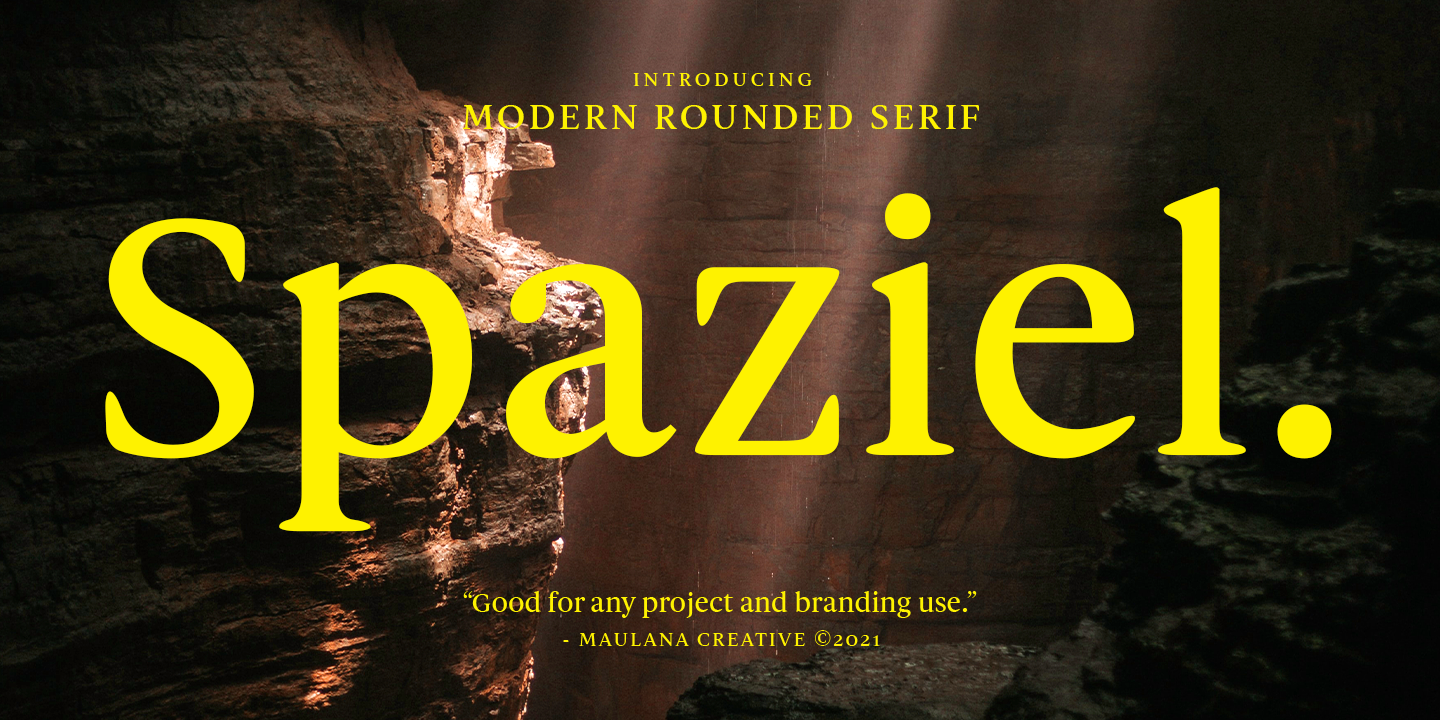
Spaziel Serif Round Font is perfect for sophisticated design applications including modern editorial layouts, contemporary book publishing, refined brand identity, upscale magazine typography, elegant web interfaces, cultural institution materials, premium business communications, and distinguished advertising campaigns that require typography with contemporary elegance and readable sophistication.
What makes Spaziel Serif Round Font exciting is its remarkable fusion of classical serif tradition with contemporary rounded aesthetics that creates exceptional readability while maintaining sophisticated character. This innovative typeface features gracefully rounded serifs with modern proportions and gentle curves that instantly communicate approachability, refinement, and progressive thinking. The font's contemporary personality and elegant functionality make it perfect for brands seeking to establish credible sophistication and communicate values of innovation, accessibility, and modern excellence to educated audiences.
Spaziel Serif Round Font family encompasses multiple weights and stylistic variations designed for comprehensive contemporary communication. The family typically includes thin, light, regular, medium, bold, and black weights, complemented by refined italics, rounded alternates, and extensive character sets with multilingual support that enhance its sophisticated aesthetic and provide maximum design flexibility.
Contemporary designers consistently select Spaziel Serif Round Font Free Download for projects requiring typography that embodies modern sophistication and readable elegance. This versatile typeface adapts beautifully across digital and print applications, delivering consistent brand messaging with unmistakable contemporary authority and approachable sophistication. The font's carefully engineered letterforms ensure exceptional legibility while maintaining the refined presence that modern brands demand. Progressive publishing agencies worldwide rely on this elegant typeface to communicate brand values of innovation, accessibility, and contemporary excellence. Modernize your brand's sophisticated presence with Spaziel Serif Round Font and create compelling visual communications that resonate with audiences who appreciate contemporary design, readable elegance, and the perfect balance of tradition and innovation.